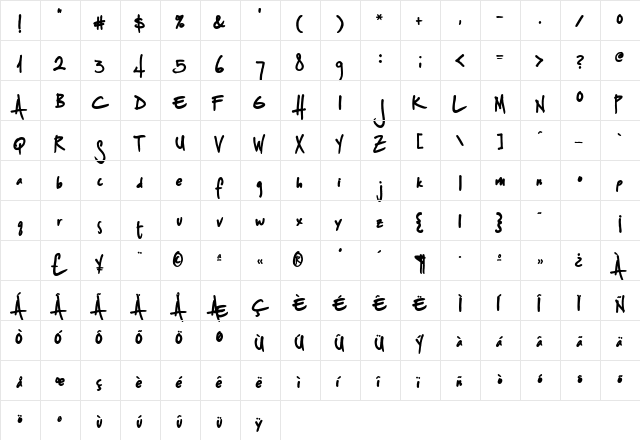
Splurge Bold Font Preview
Splurge Bold
Design Context for Splurge Typeface
Splurge is a composed and adaptable typeface that performs quietly and consistently across a wide range of design contexts. The heavy weight commands attention and anchors typographic hierarchies.